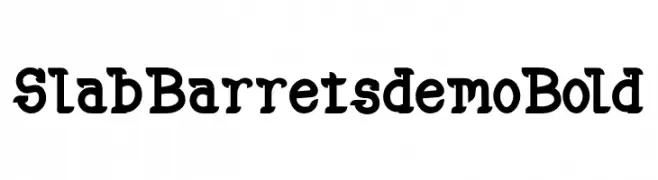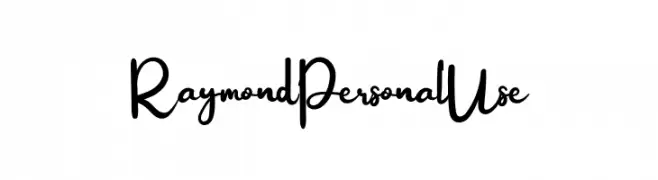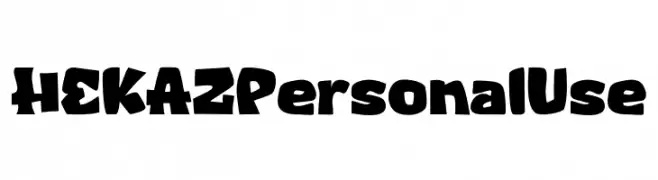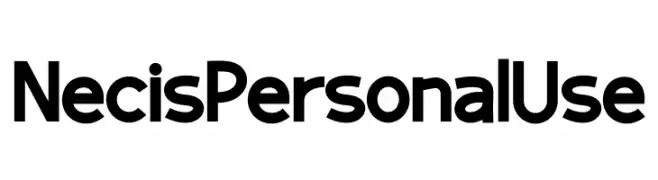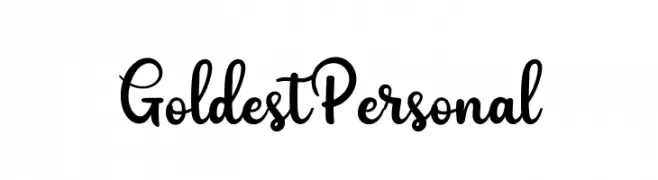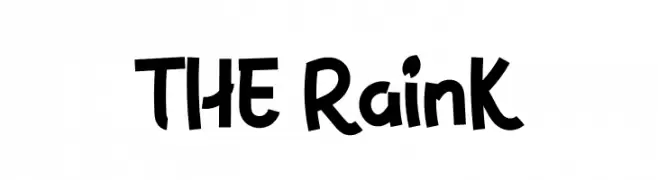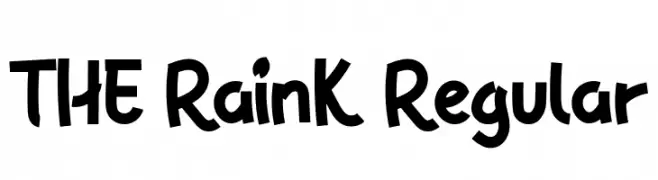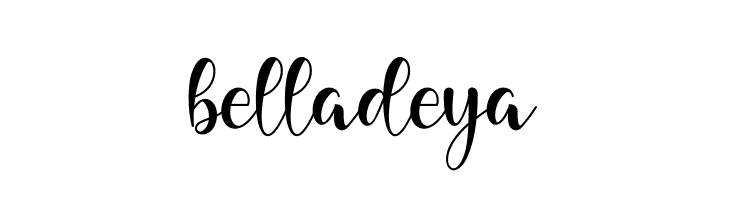
A bold slab serif font with strong, block-like serifs and consistent stroke width.
A playful, bold handwritten font with a lively and energetic style.
A playful and flowing script font with elegant curves and a handwritten feel.
A bold, modern sans-serif font with clean, geometric lines and even spacing.
A bold, playful font with rounded, exaggerated curves and thick strokes.
A bold, modern typeface with clean lines and geometric structure.
A playful and elegant script font with a handwritten style.
A playful, hand-drawn font with bold, irregular strokes and quirky details.
A playful, hand-drawn font with bold, whimsical characters.
A playful, bold handwritten font with smooth, rounded letterforms.